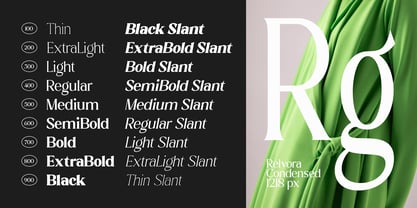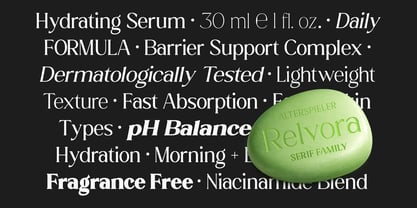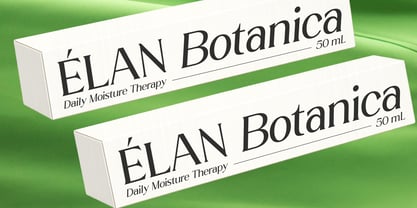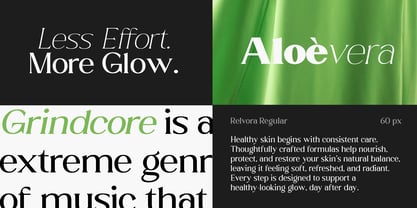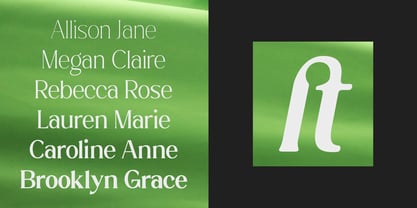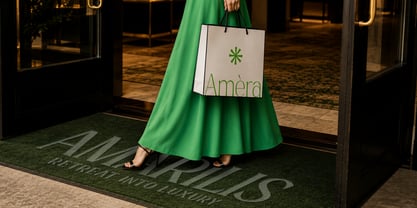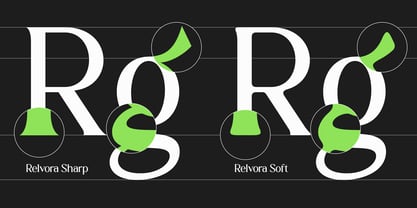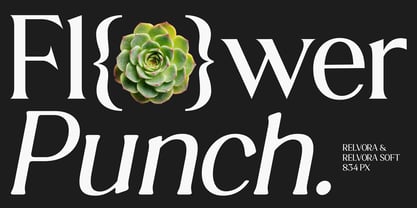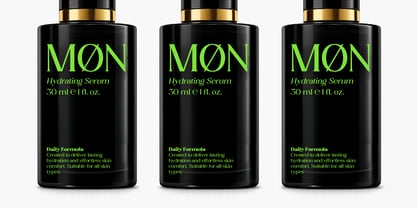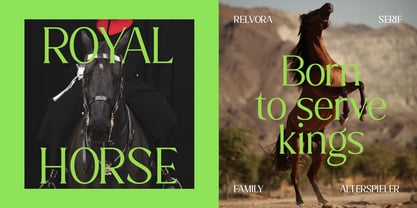
Relvora
by Alterspieler
The Relvora Font Family was designed by Zaki Muhammad, Amri and published by Alterspieler. Relvora contains 180 styles and family package options. More about this family
Relvora is a refined contemporary serif typeface that blends timeless elegance with modern sophistication. Featuring graceful curves, balanced proportions, and striking high-contrast details, it creates a luxurious and distinctive visual presence. Inspired by classical serif typography and reimagined for contemporary design, Relvora is crafted for exceptional readability and refined display performance. Perfect for luxury branding, editorial design, fashion, cosmetics, packaging, logos, magazines, and premium visual identities, Relvora brings confidence, versatility, and timeless character to every creative project.
Designers: Zaki Muhammad, Amri
Foundry: Alterspieler